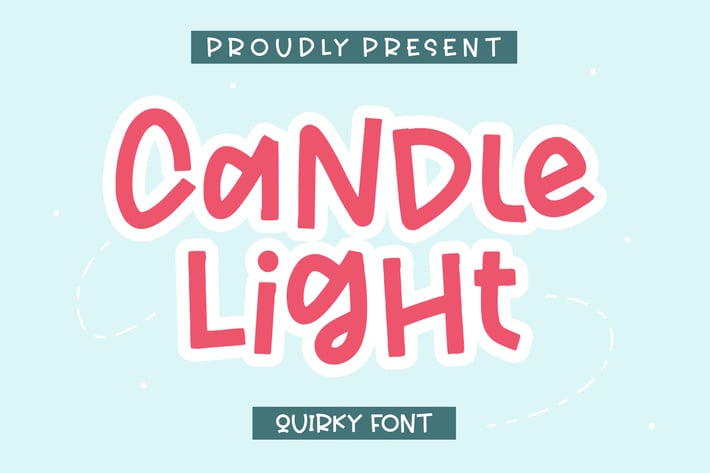
Candle Light Quirky Font
Candle Light is a fun and quirky handwritten font that radiates warmth and playfulness. With its bouncy letters and casual charm, it’s perfect for adding a friendly and cheerful personality to your creative projects. This typeface captures the feeling of joy and comfort — like cozy candlelight on a happy evening.
Playful handwritten design with irregular shapes for a natural, friendly feel
Uppercase and lowercase letters with smooth curves
Greeting cards and invitations
Children’s books and educational materials
Branding and packaging for fun or creative products
Posters, quotes, and social media graphics
* DIY and craft projects
Bright, cheerful, and full of character — Candle Light brings playful energy and heartfelt warmth to your words.